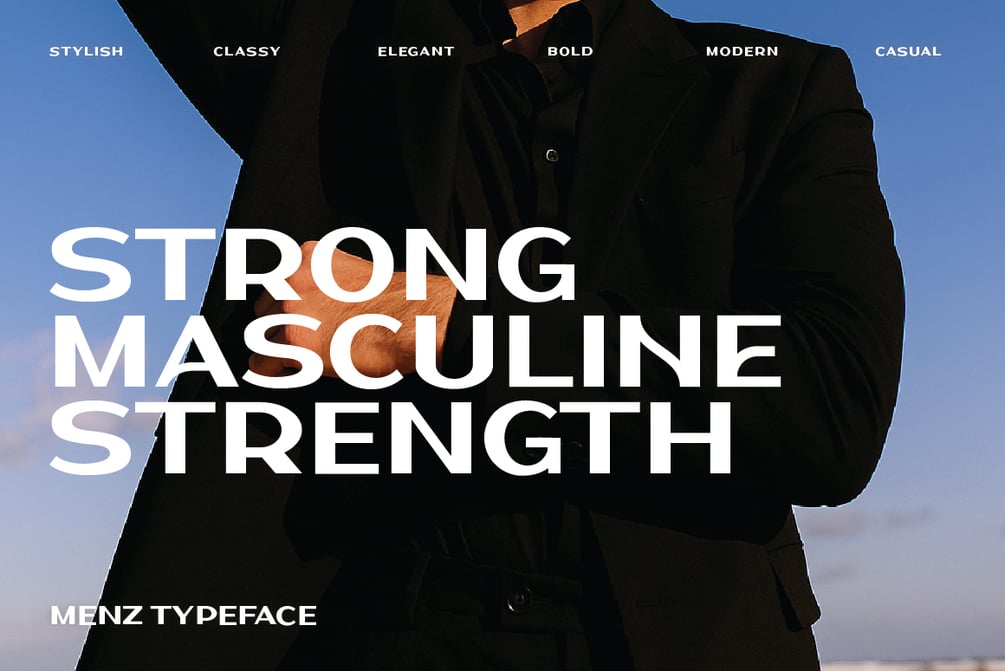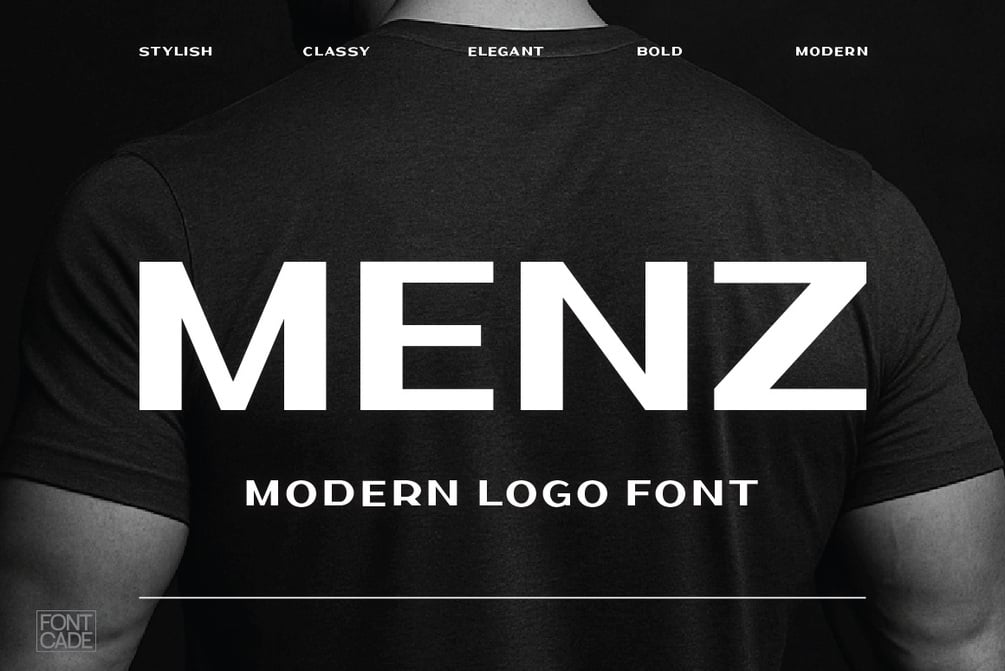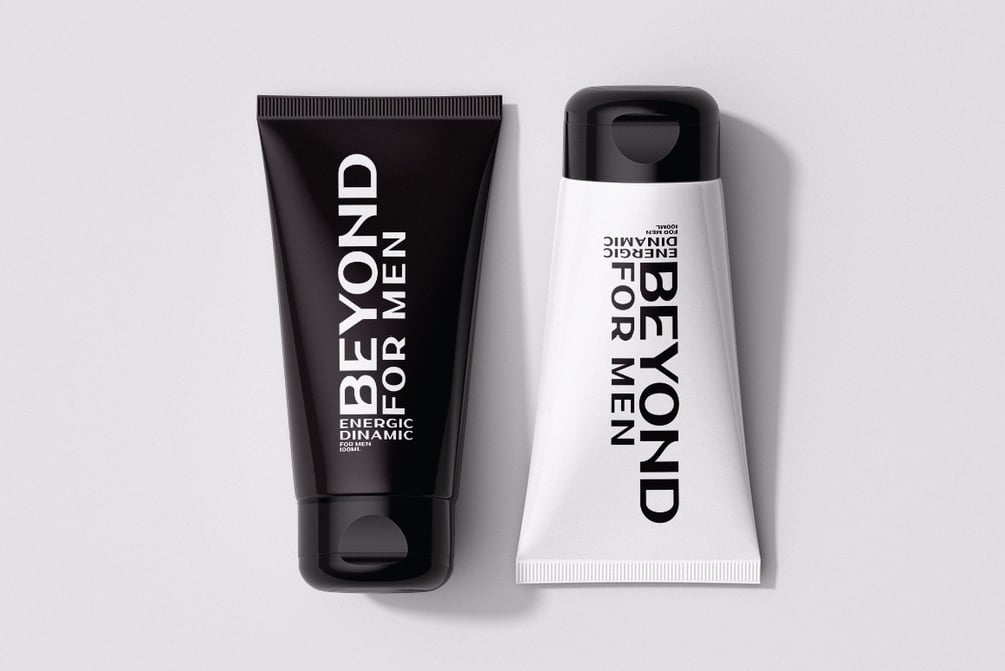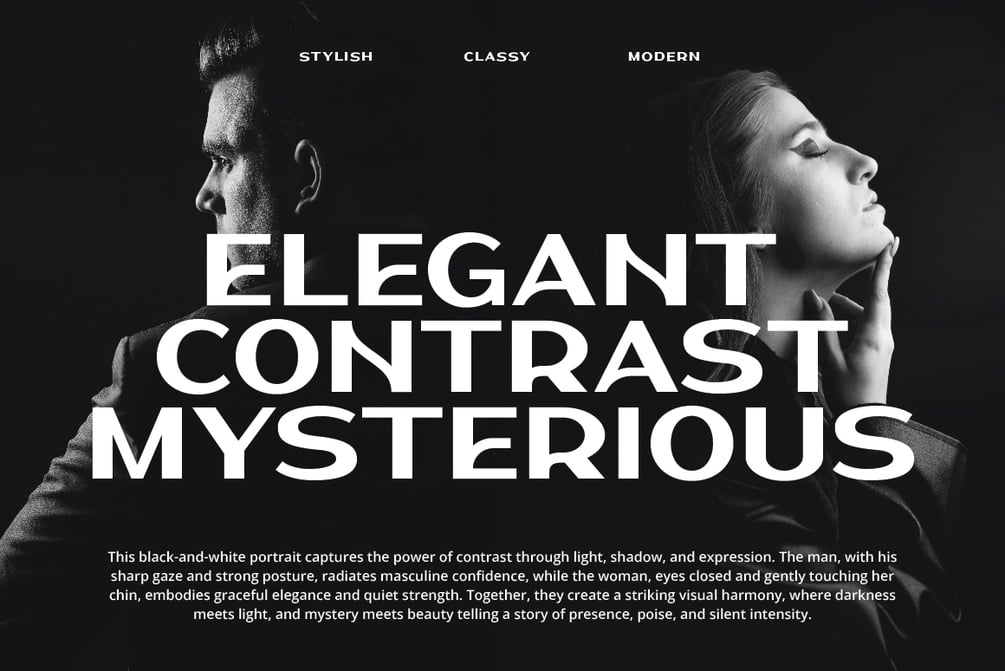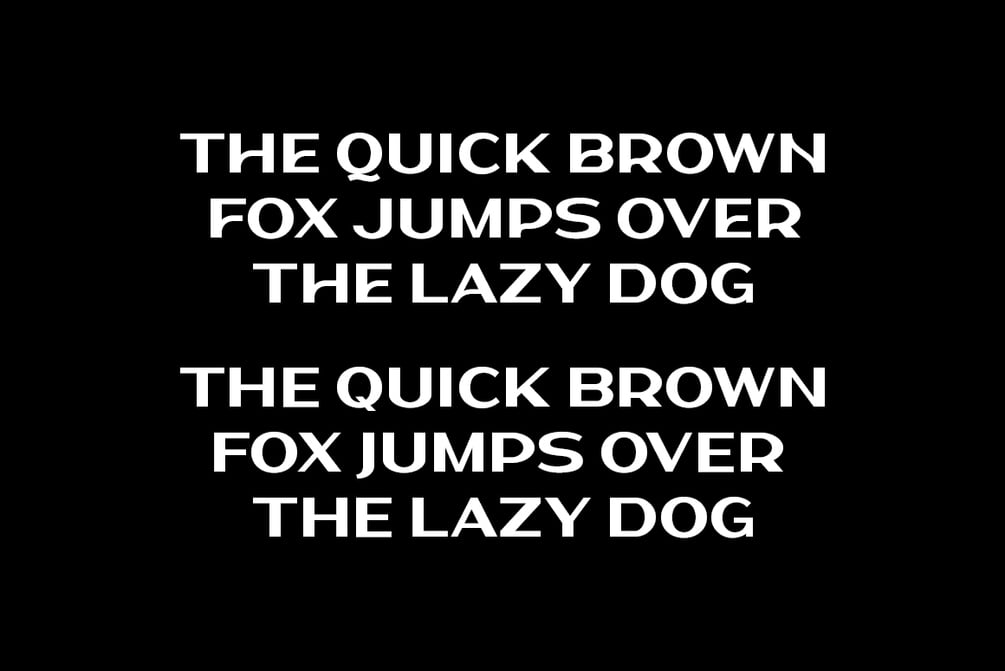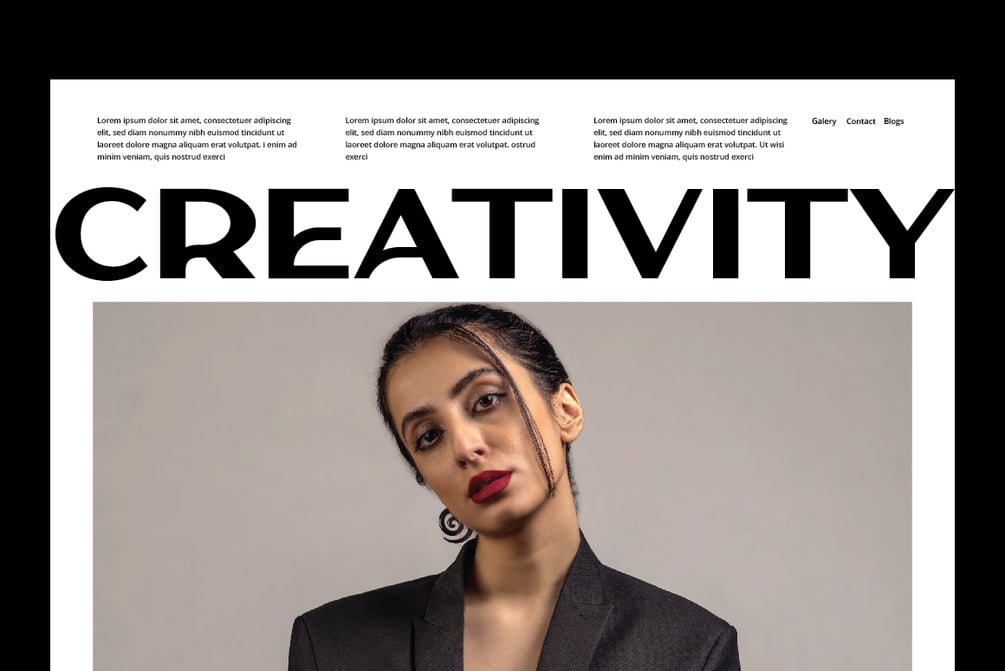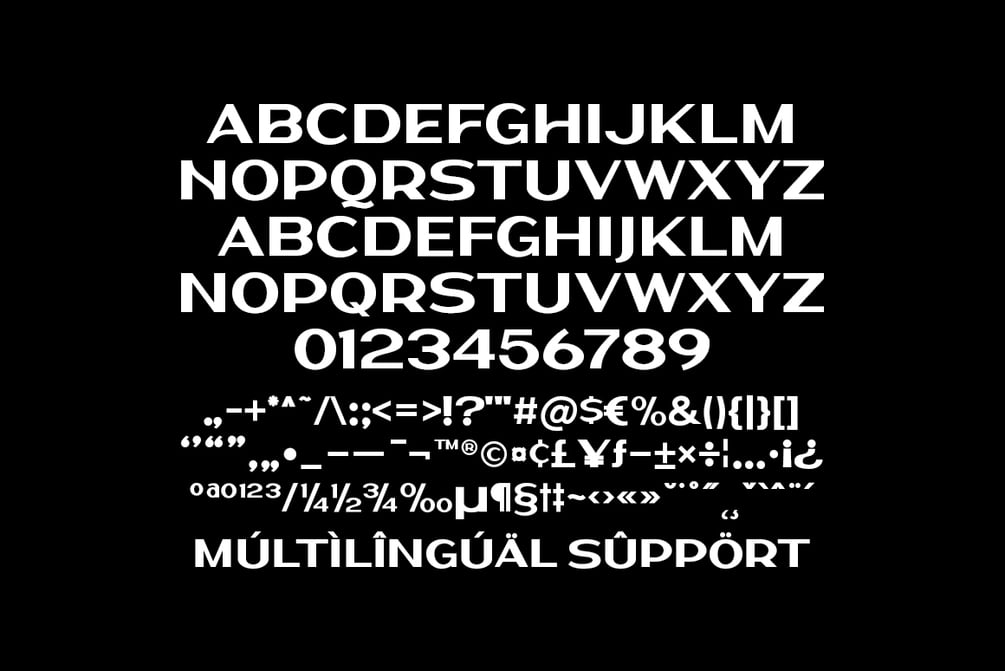
Menz Font
Menz is a bold and futuristic display font with clean curves and geometric shapes. Perfect for headlines, posters, logos, and branding, Hans brings a sleek, modern edge to any design. Its strong presence and unique letterforms make it ideal for impactful typography and standout titles.
- All Caps, Numeral & Punctuation
- PUA Encoded & Multilingual